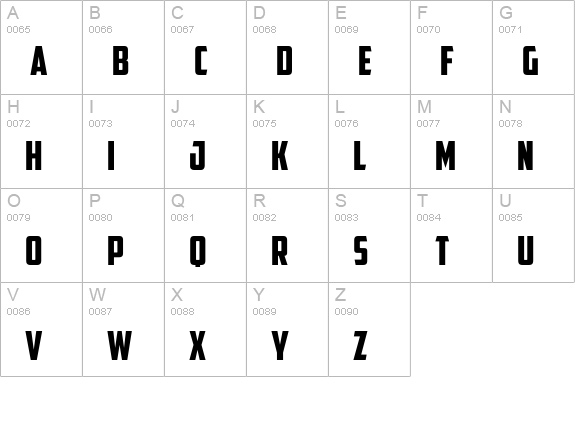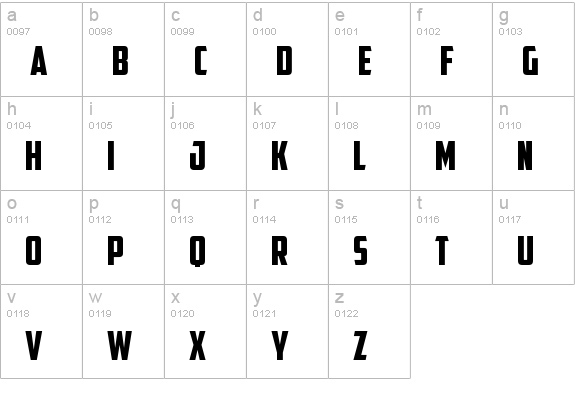
American Captain Font Details
American Captain font is a bold and striking typeface that exudes a sense of strength and patriotism. This font is reminiscent of vintage American signage, with its bold, blocky letters that demand attention. It is perfect for any project that requires a touch of Americana, whether it be a logo, poster, or headline. What sets American Captain font apart is not only its stunning design, but also the fact that it is available for free. That's right, this incredible font can be freely downloaded at FontsMarket.com. This means that you can add a touch of American spirit to your designs without breaking the bank. The versatility of American Captain font is truly remarkable. Its bold and commanding presence makes it perfect for headlines and titles, while its unique design adds a touch of nostalgia to any project. Whether you're designing a vintage-inspired poster or creating a logo for an American-themed brand, American Captain font will ensure that your design stands out from the crowd. With its freely available download, American Captain font allows designers and creatives to unleash their creativity without any limitations. It is a font that embodies the spirit of America and is sure to make a lasting impression on any project. So why wait? Head over to FontsMarket.com and download American Captain font today to bring a touch of bold and patriotic flair to your designs.